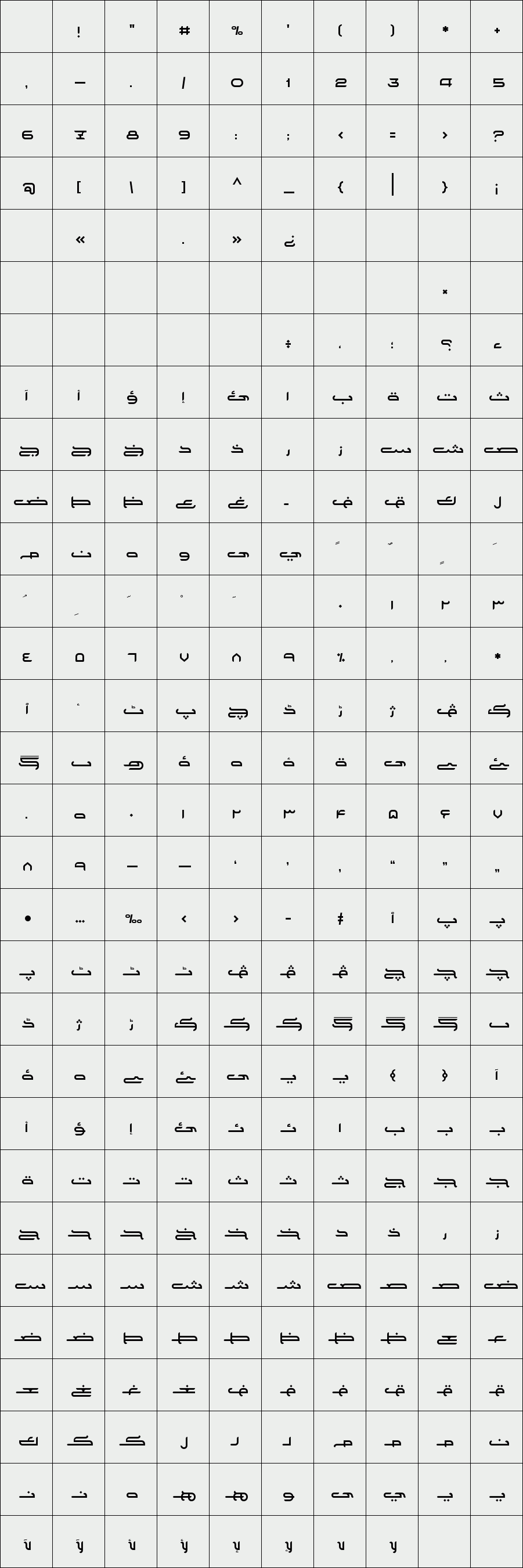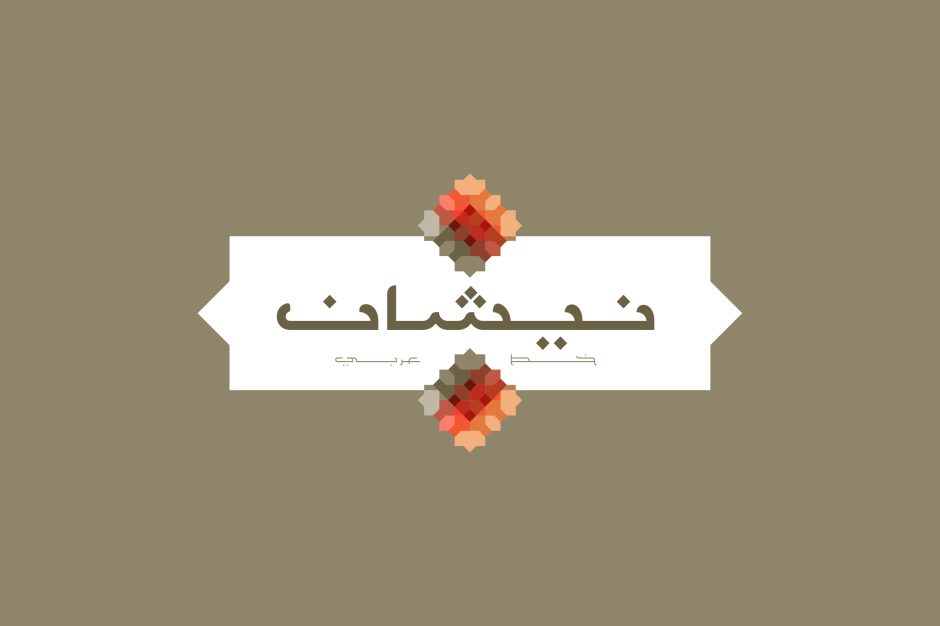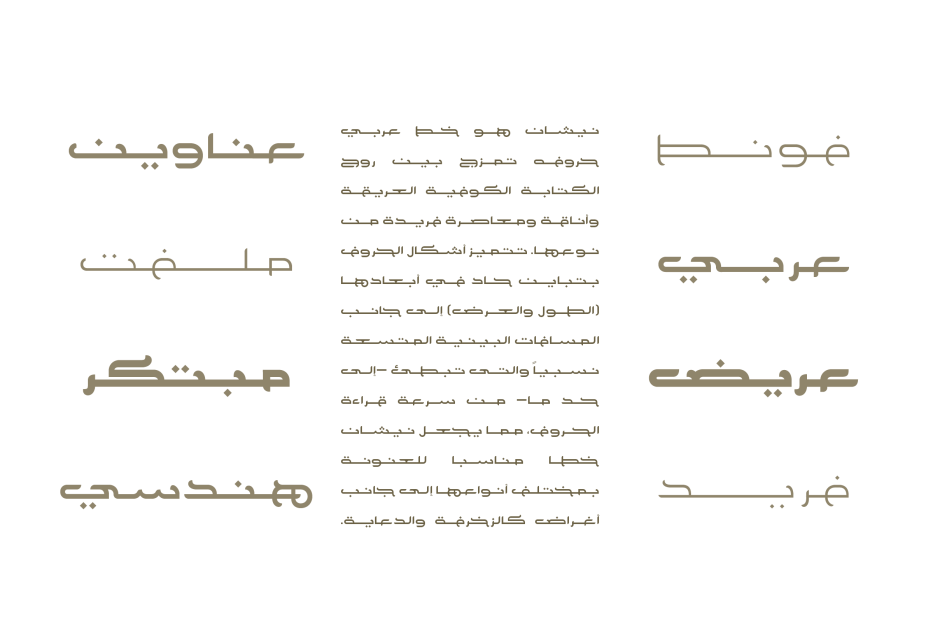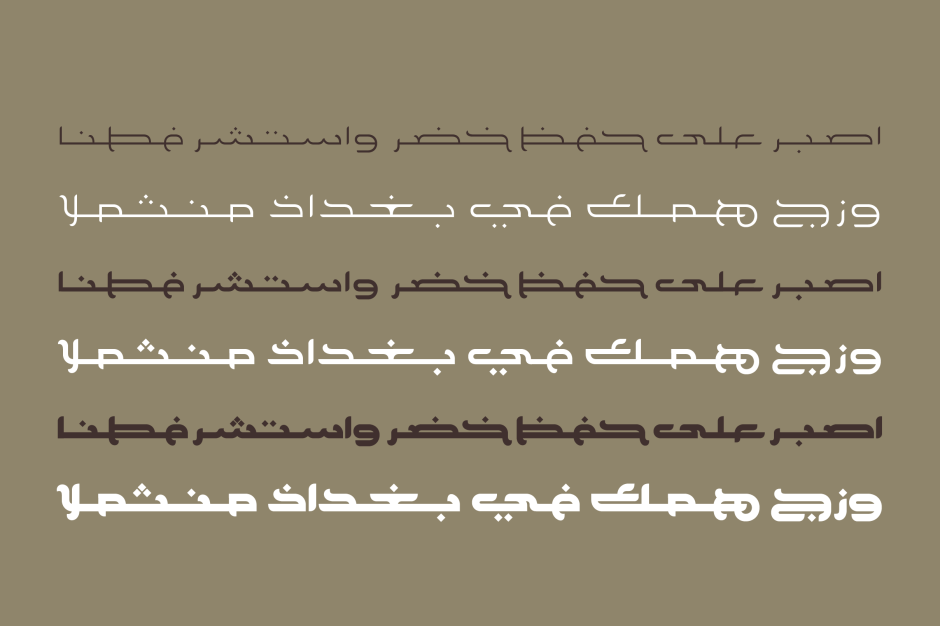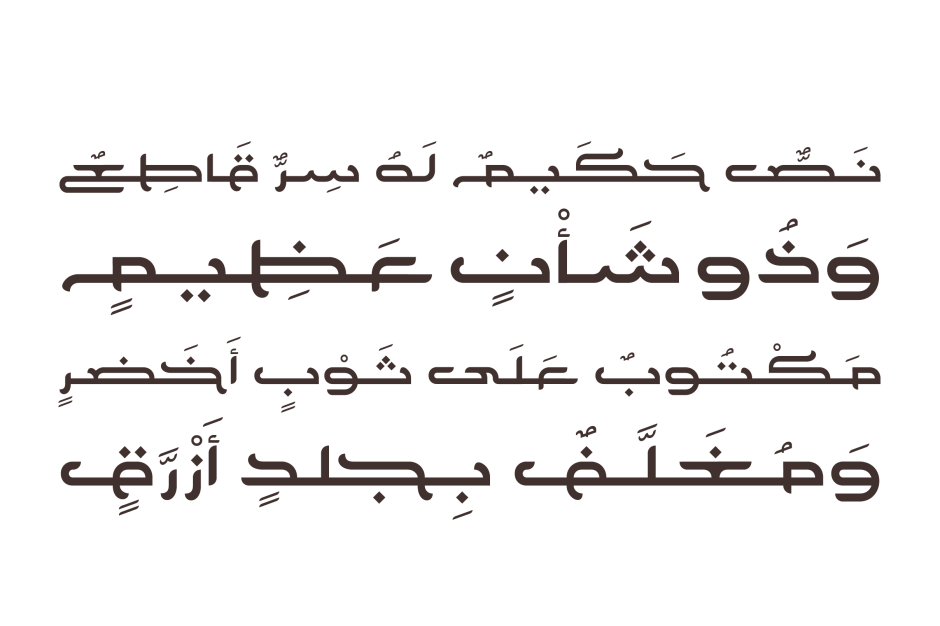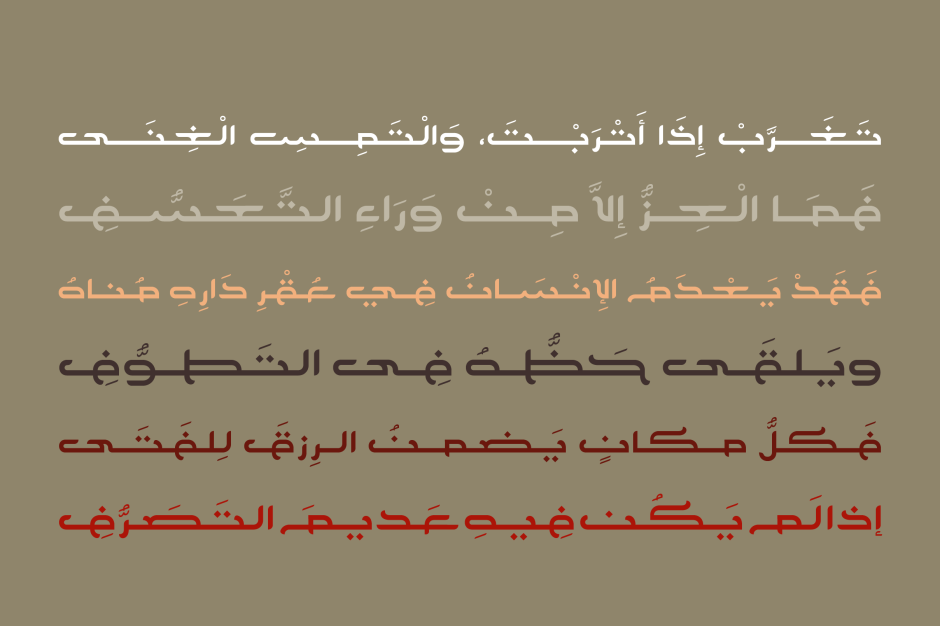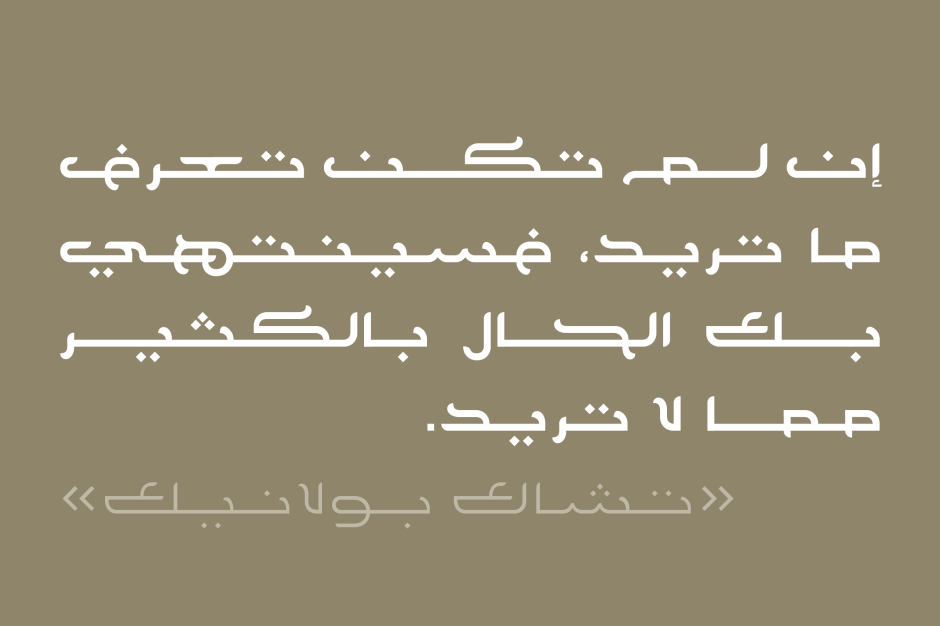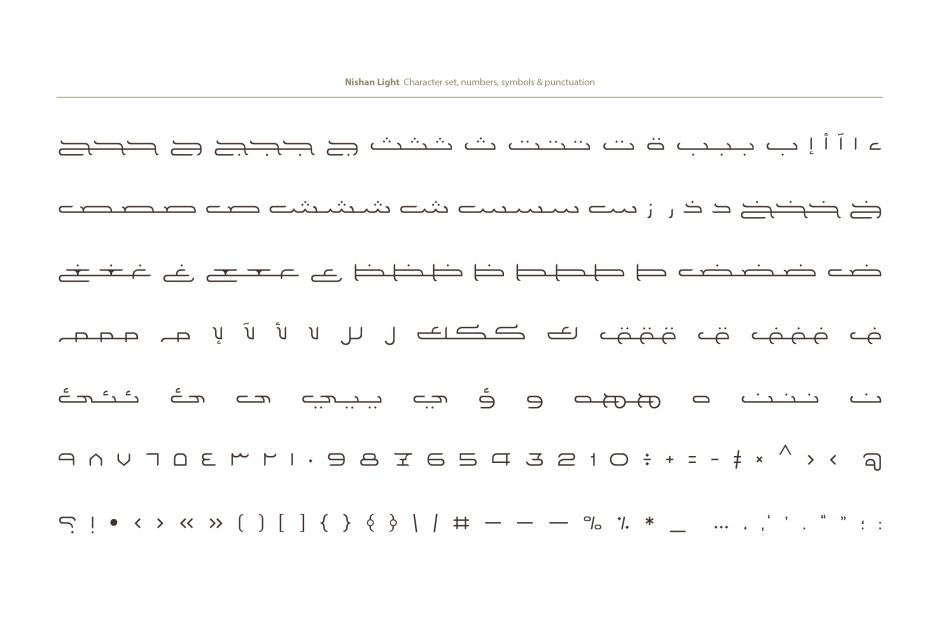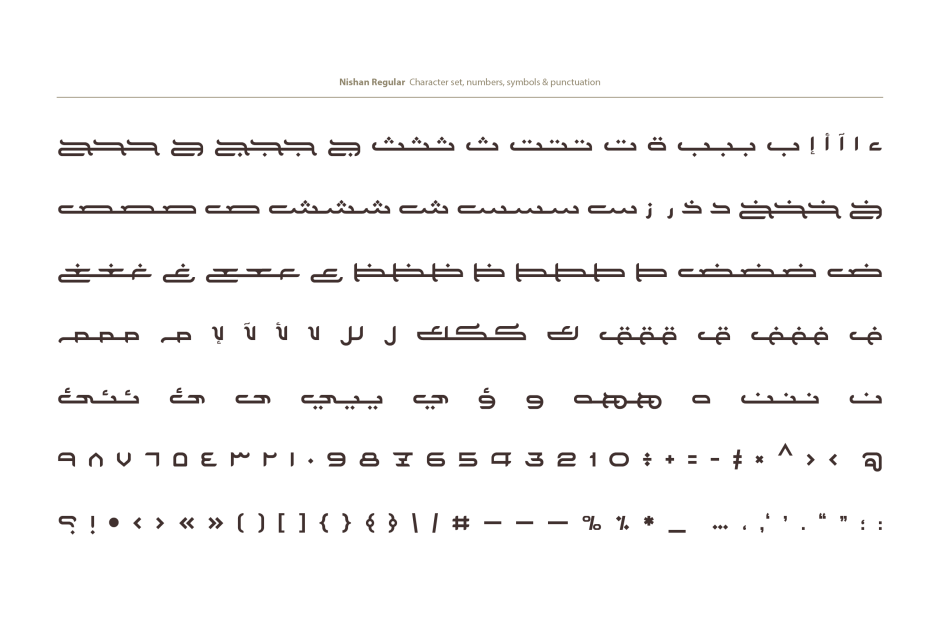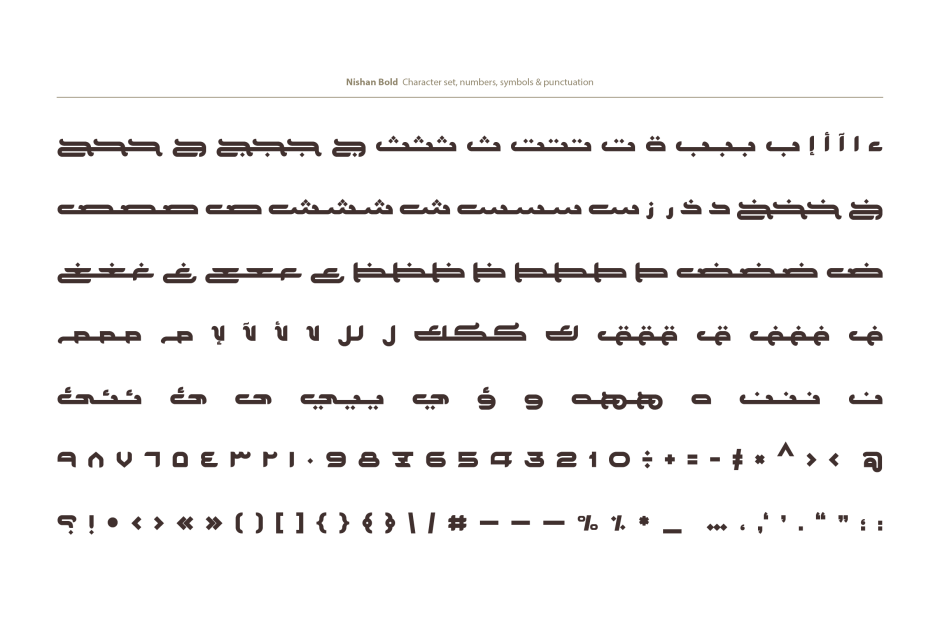
Nishan
/ Nishan Regular
Nishan is a unique typeface that fuses the spirit of ancient Kufic inscriptions with the elegance of contemporary Arabic writing. Letterforms are characterized by a sharp difference in their dimensions (length and width). The wide spacing relatively slows down -to some extent- the readability, making Nishan more suitable for creative titlings. Nishan consists of three weights, namely: Light, Regular and Bold.